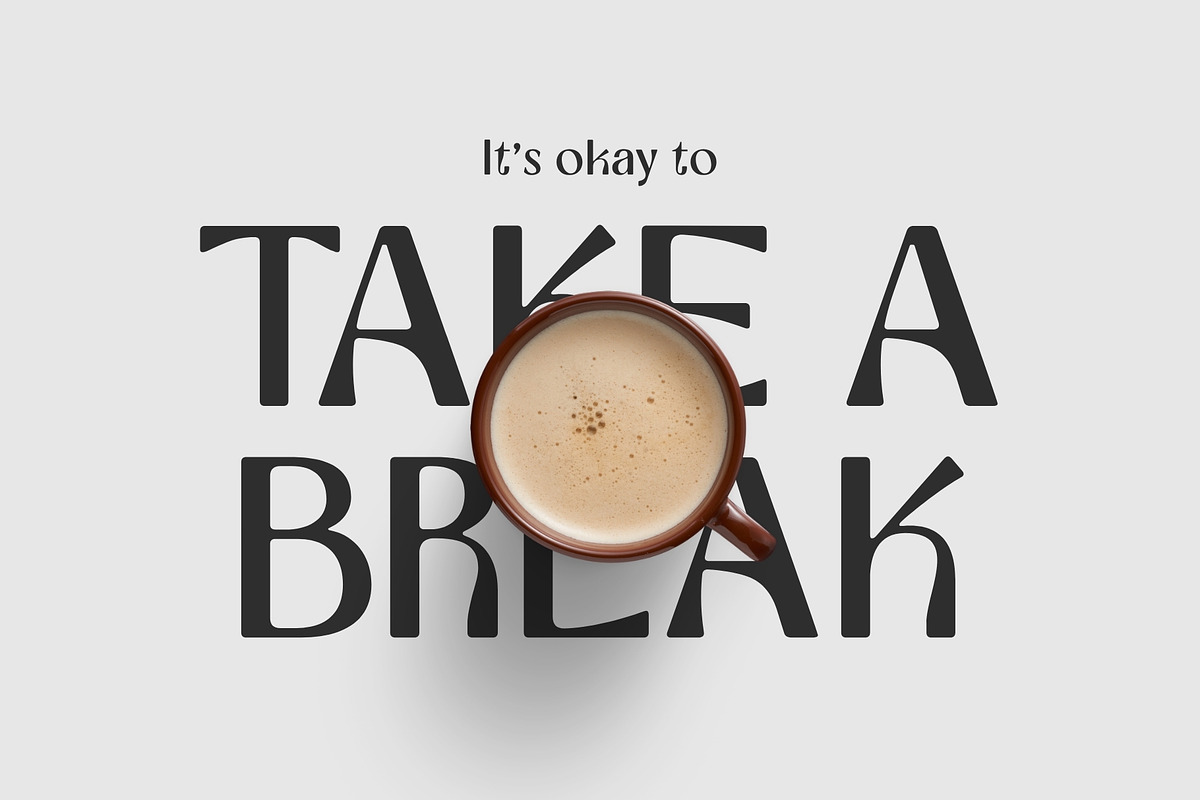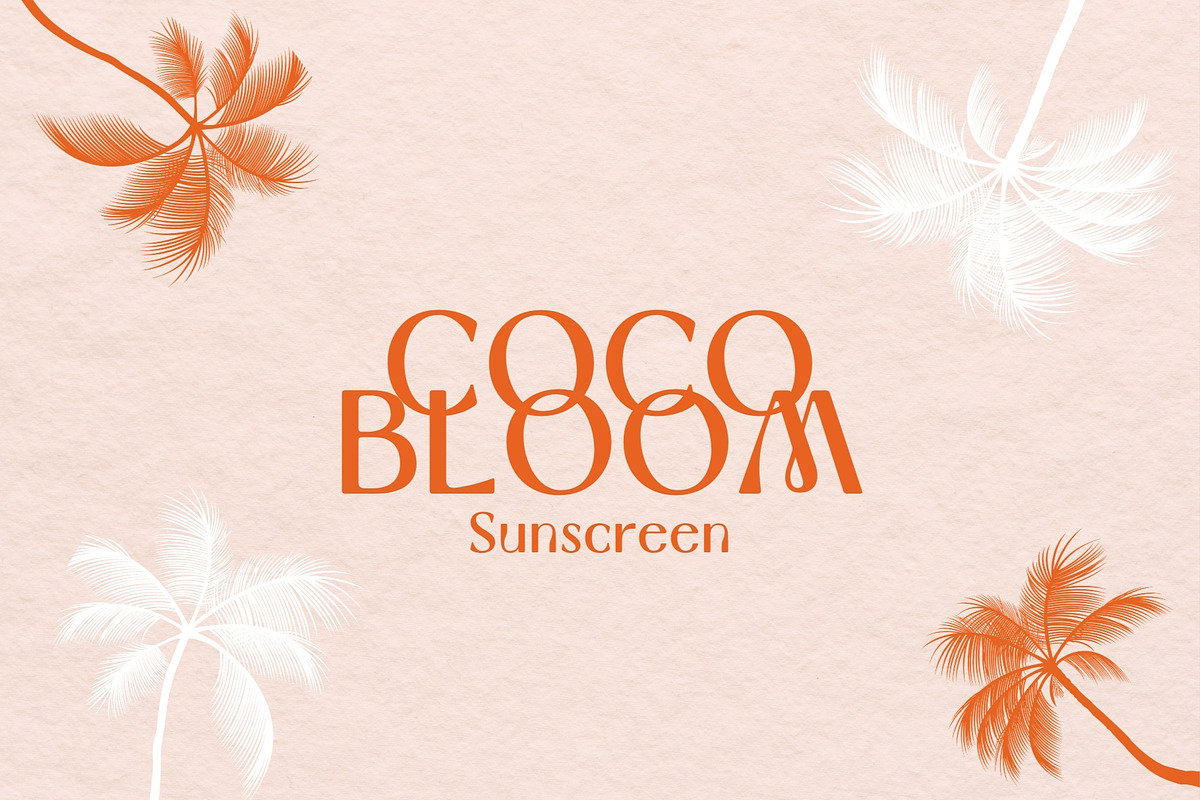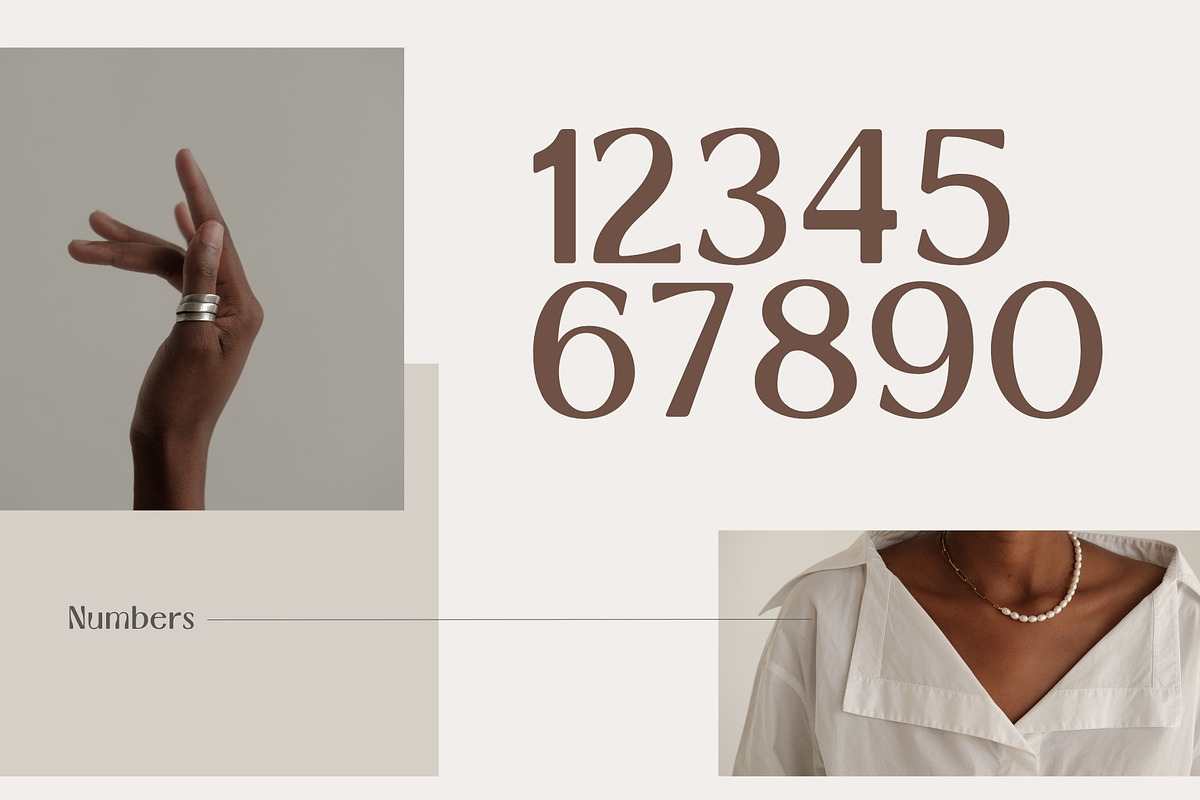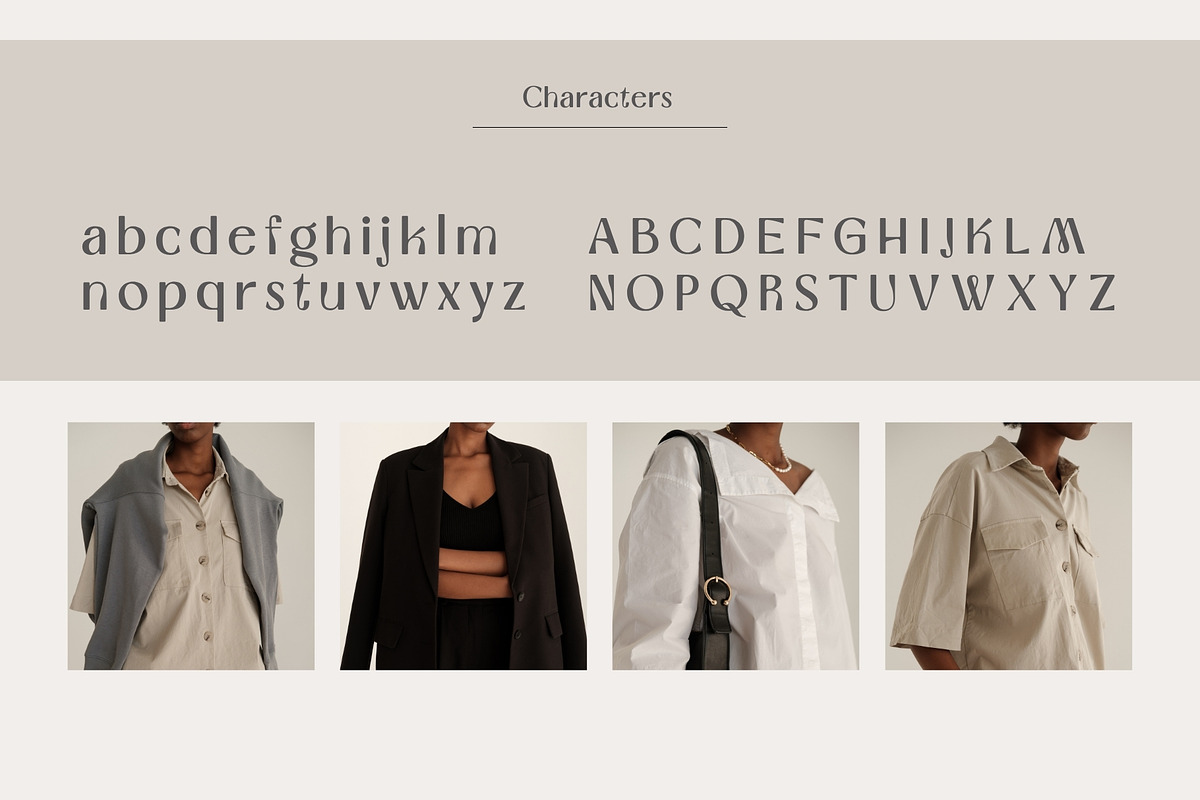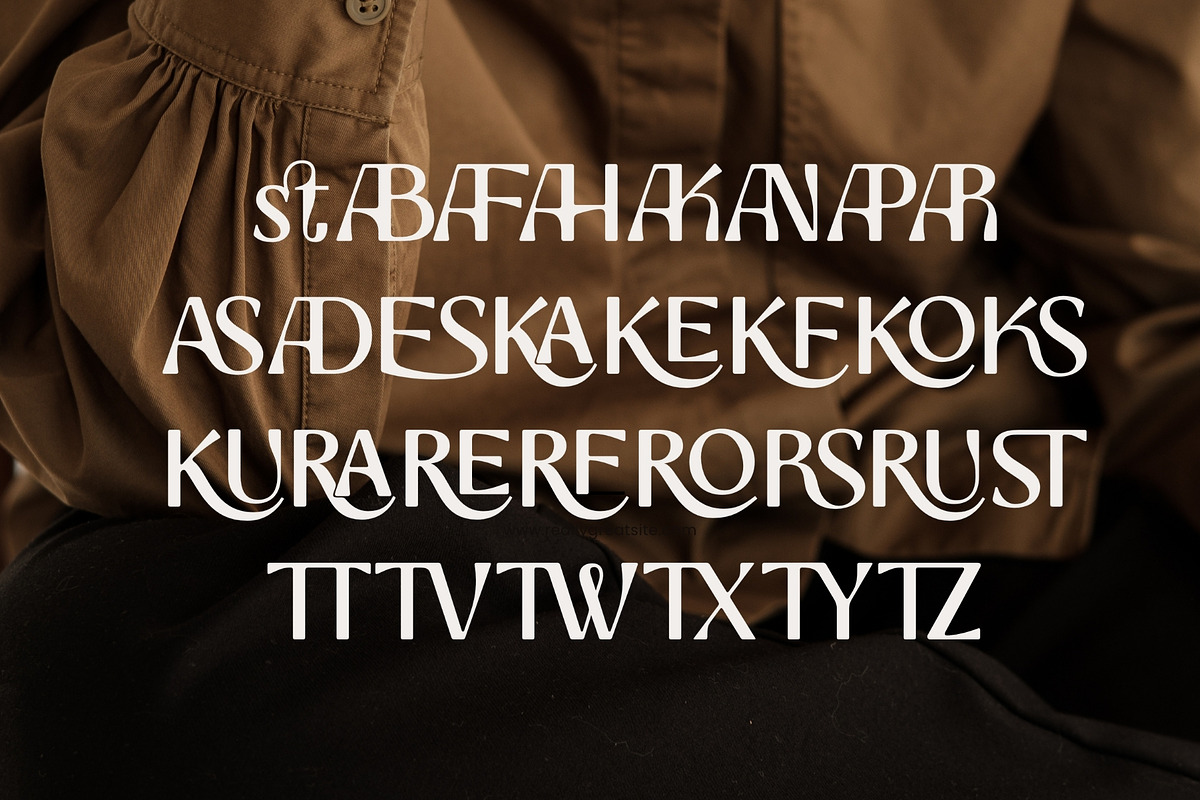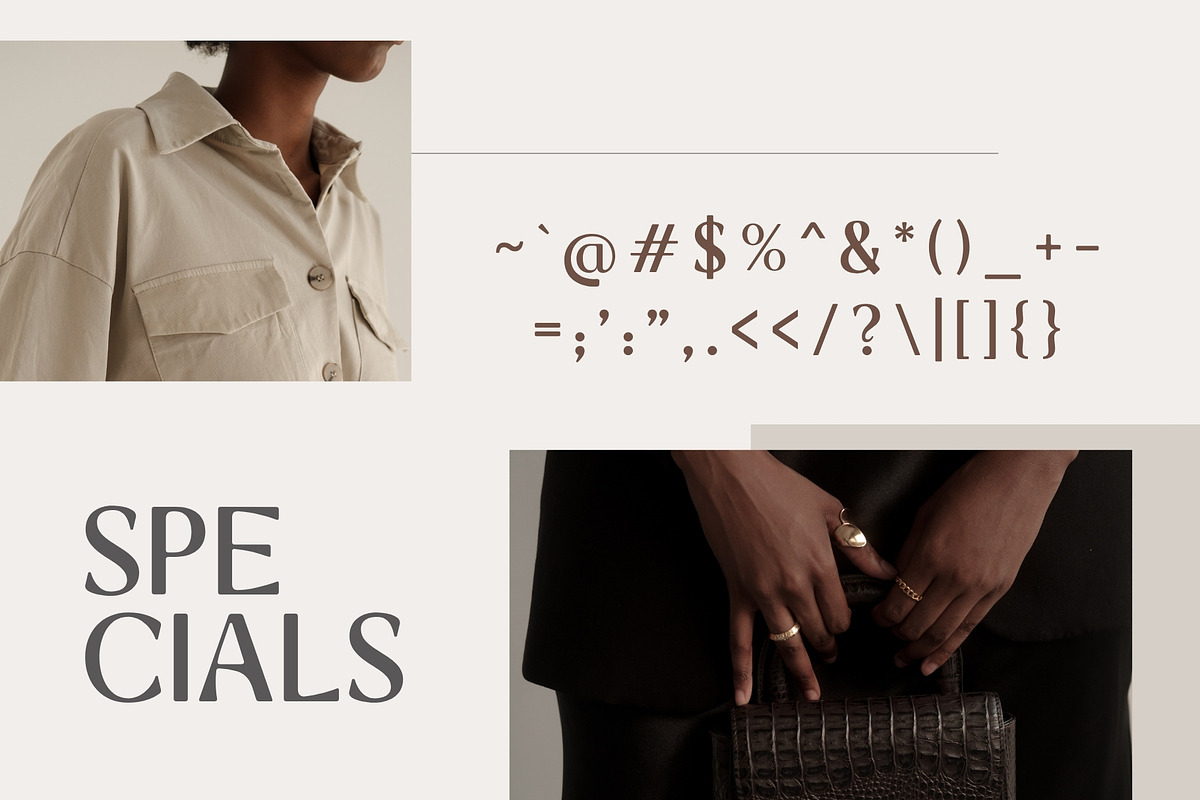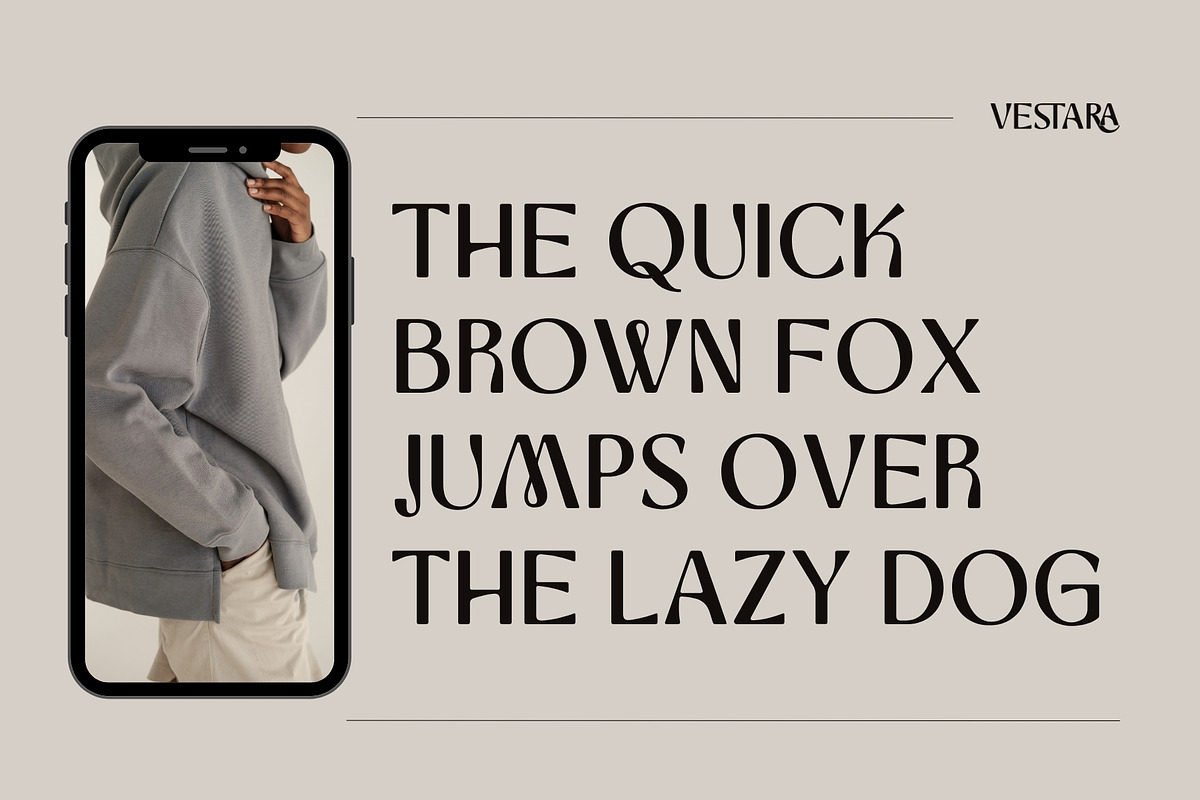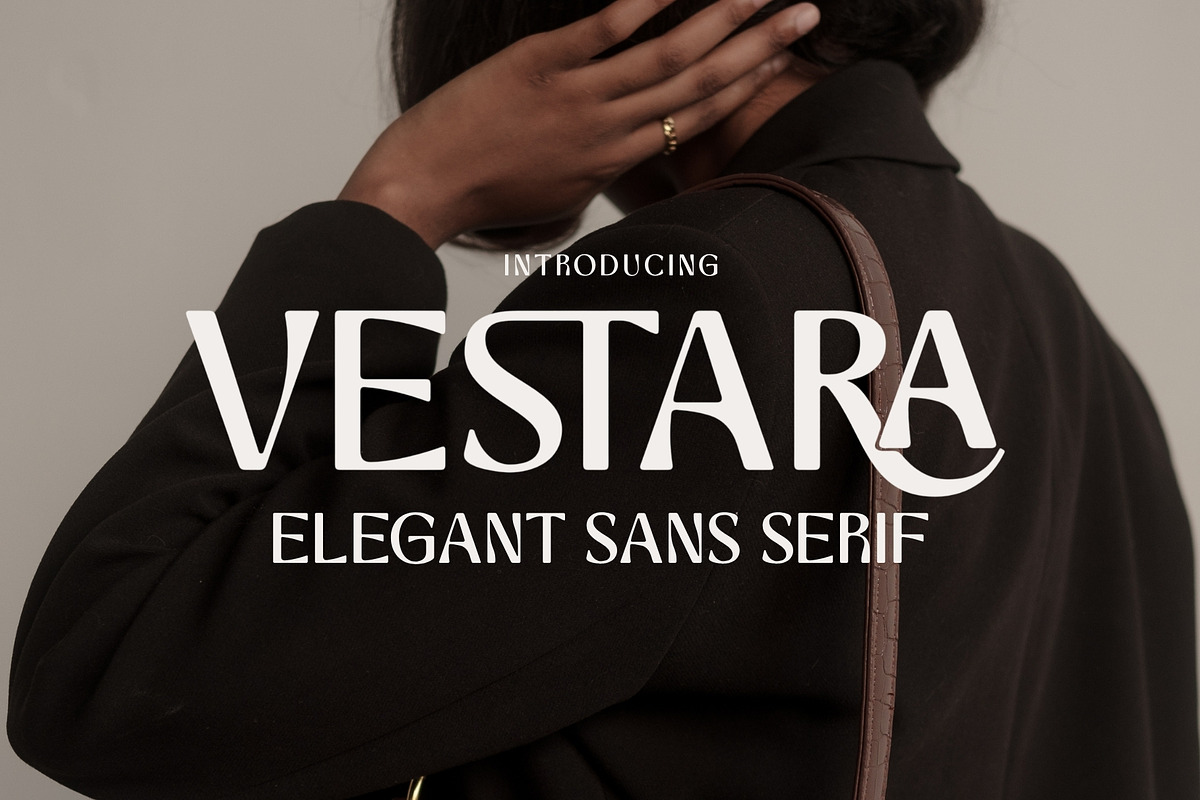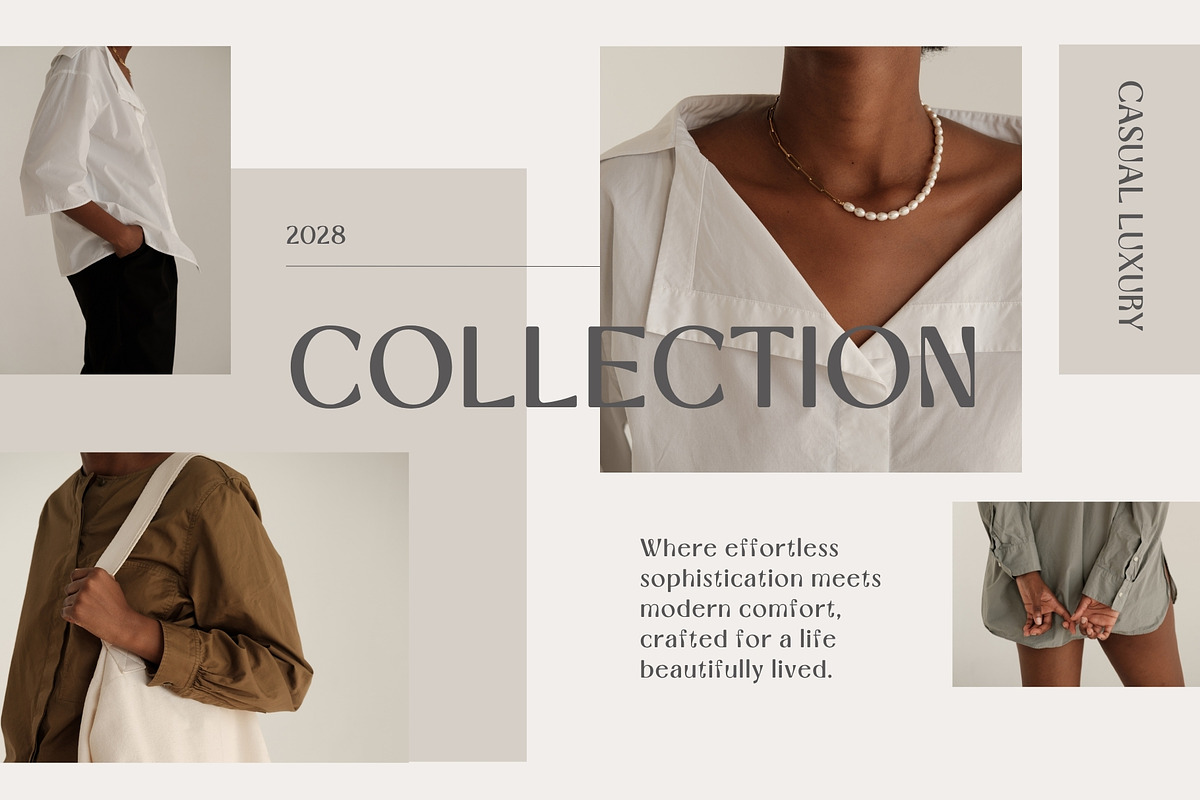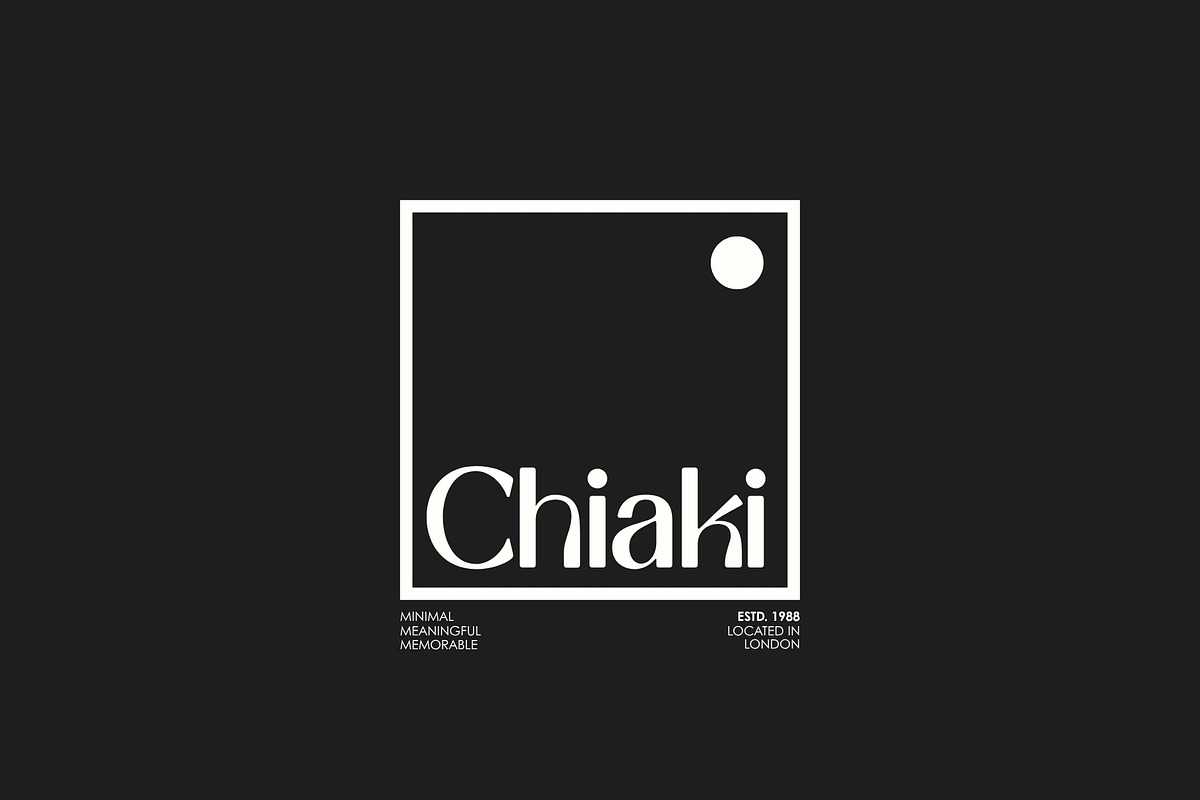
Vestara - Modern Luxury Sans Serif
Elevate your designs with Vestara, a refined modern luxury sans serif crafted for designers who appreciate timeless elegance with a contemporary edge. Clean, sophisticated, and effortlessly stylish, Vestara blends minimalist aesthetics with distinctive uppercase ligatures, giving you creative flexibility while maintaining a polished, premium look.
Every letter has been carefully designed to create a balanced visual rhythm, making headlines feel luxurious without sacrificing readability. The thoughtfully crafted ligatures add personality and uniqueness to logos, editorial layouts, branding, and high-end packaging, allowing you to create memorable typography with ease.
Inspired by modern fashion houses, luxury resorts, boutique hotels, premium cosmetics, and contemporary interior design, Vestara delivers bright, clean, and sophisticated vibes that instantly elevate any project. Whether you're building an elegant brand identity or designing wedding stationery, this versatile typeface adapts beautifully across both print and digital media.
Perfect for logos, branding, wedding invitations, product packaging, beauty brands, magazines, social media graphics, photography watermarks, posters, stickers, quotes, websites, marketing materials, Cricut projects, apparel, and countless creative applications.
Uppercase & Lowercase Characters
Elegant Uppercase Ligatures
Whether you're creating a luxury fashion label, premium skincare packaging, sophisticated editorial layouts, or modern wedding branding, Vestara brings effortless elegance and contemporary luxury to every design.
Create beautifully minimal typography that feels timeless today—and years from now.